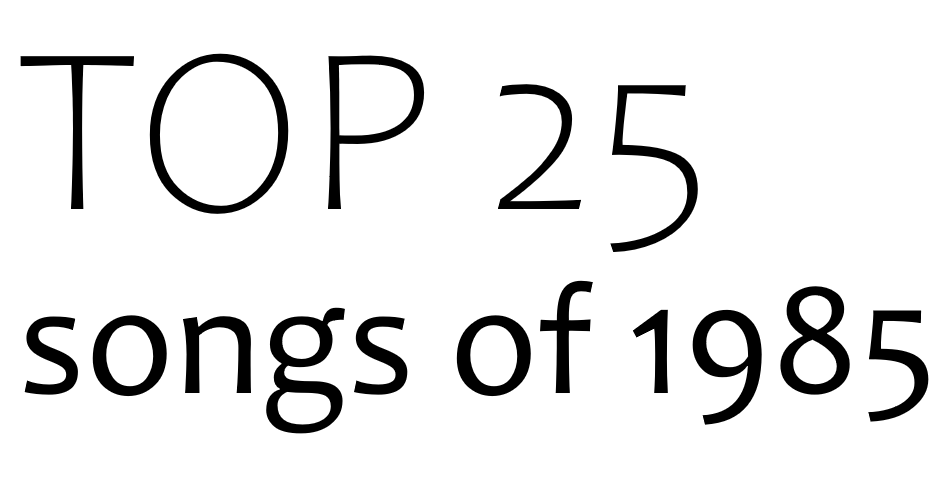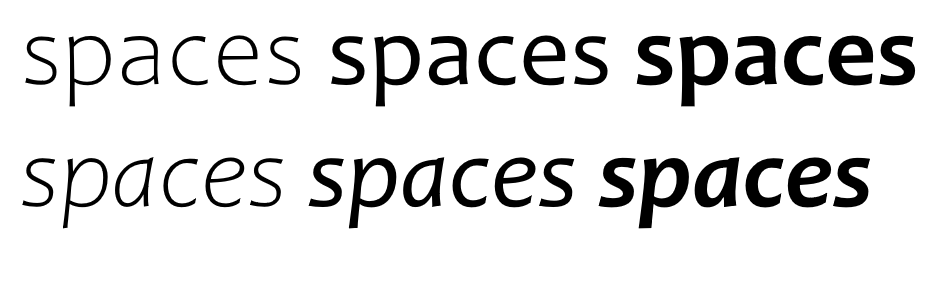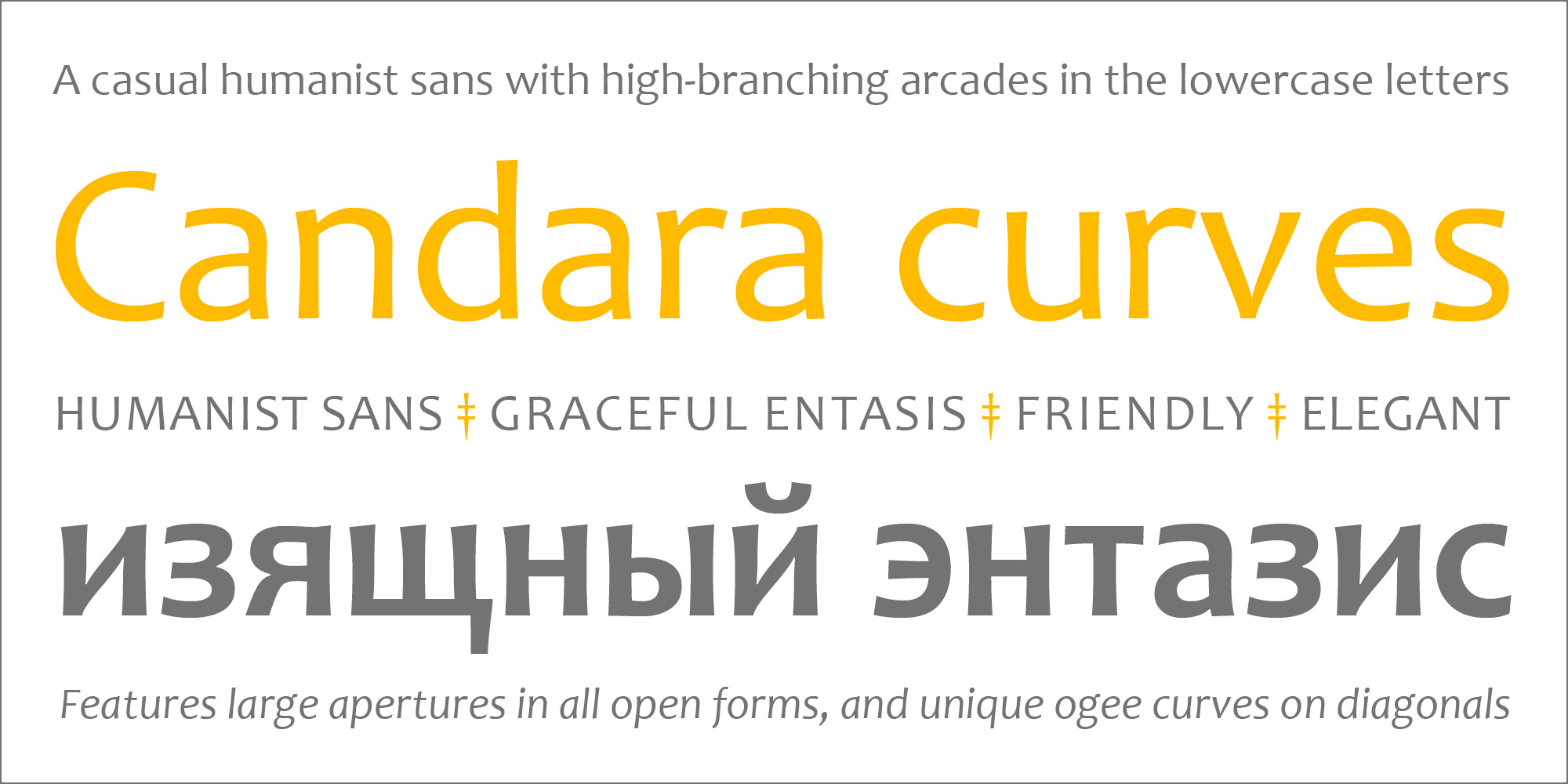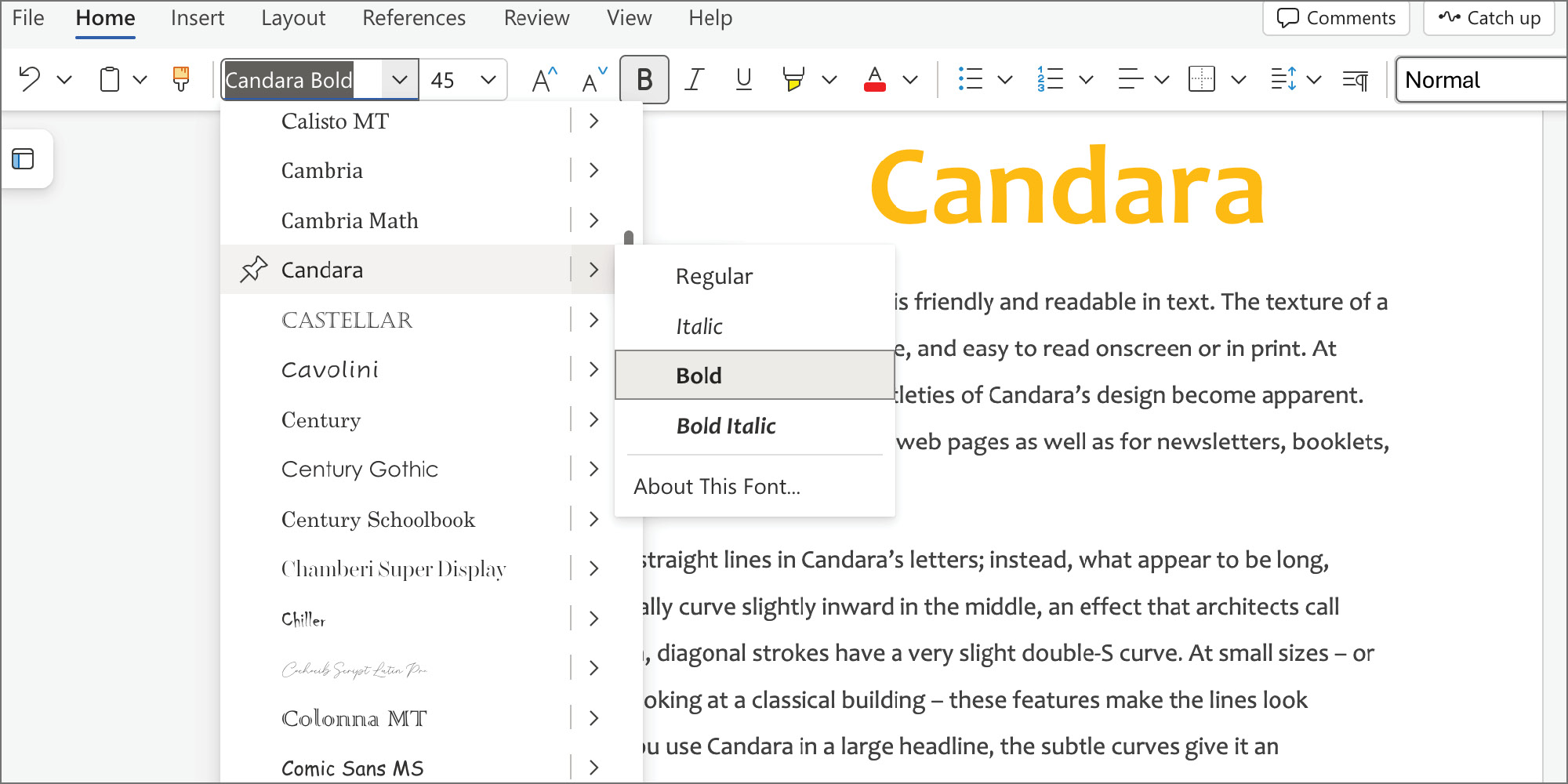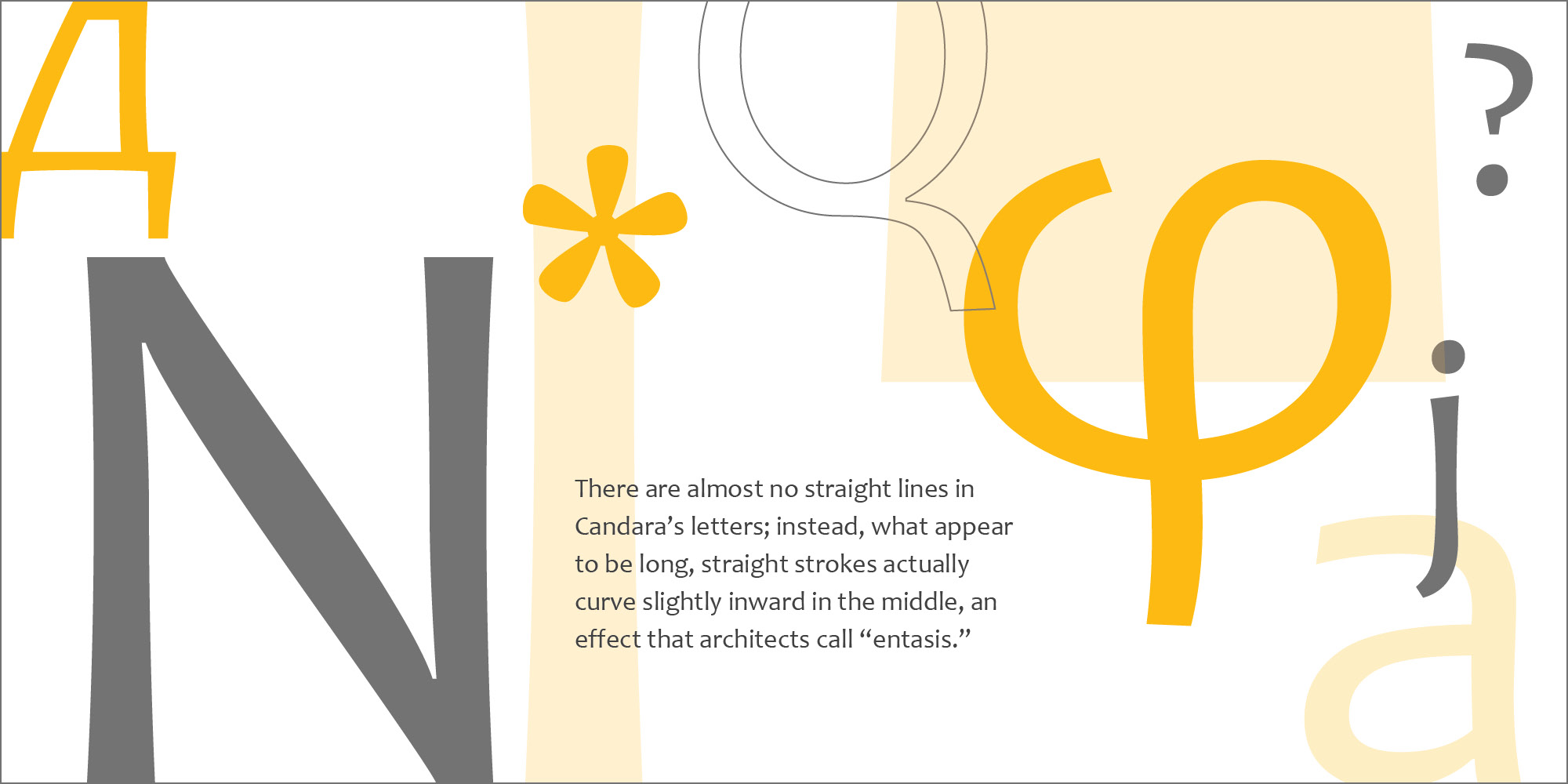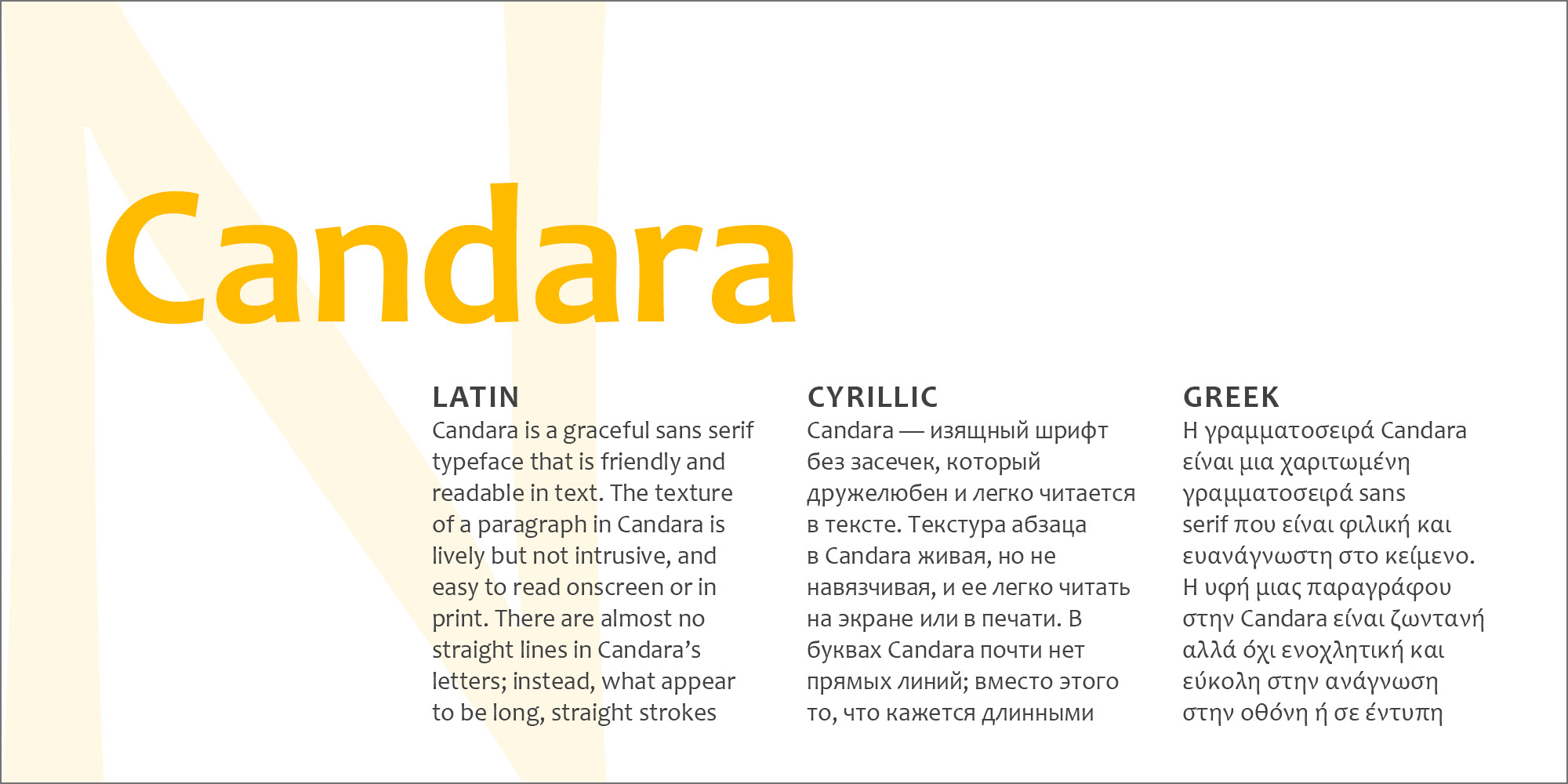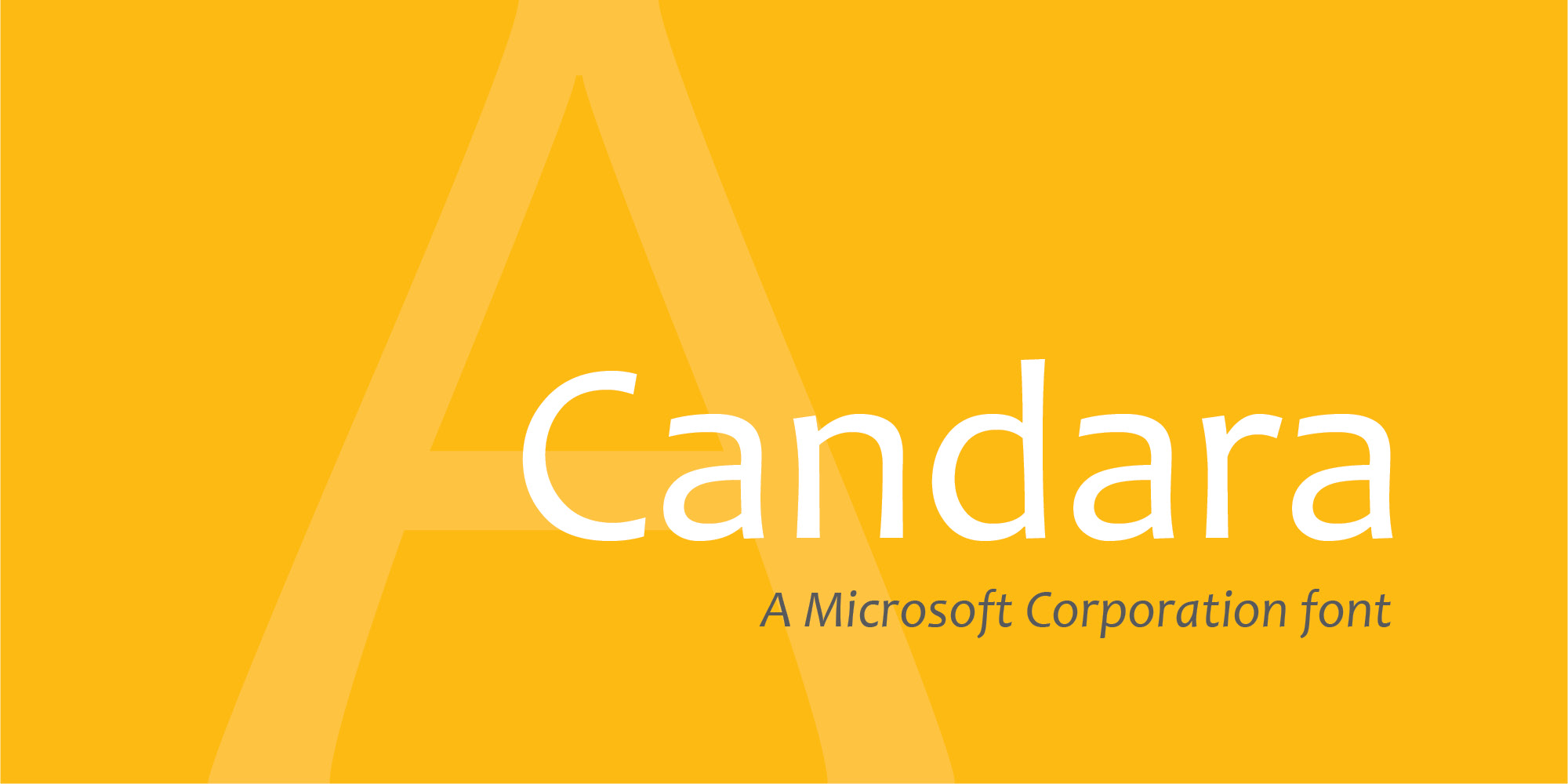
Candara is a casual humanist sans with verticals showing a graceful entasis on stems, high-branching arcades in the lowercase, large apertures in all open forms, and unique ogee curves on diagonals. The resultant texture is lively but not intrusive, and makes for a friendly and readable text. Candara is a very useful typeface for email or web pages as well as for newsletters, booklets, and flyers.
There are almost no straight lines in Candara’s letters; instead, what appear to be long, straight strokes actually curve slightly inward in the middle, an effect that architects call “entasis.” In addition, diagonal strokes have a very slight double-S curve. At small sizes – or at a distance when looking at a classical building – these features make the lines look straight, but when you use Candara in a large headline, the subtle curves give it an unexpected elegance.
Candara’s italic is less architectural and more calligraphic in style than the upright letters, but they work very well together.
| Designers | Gary Munch |
The following two styles were added to the Candara font family
- Candara Light
- Candara Light Italic
These styles were created by Monotype.
The fonts were extended to support the Vietnamese language.
Candara was introduced as part of the ClearType font collection. Initially it was available in four styles with a pan European language character set.